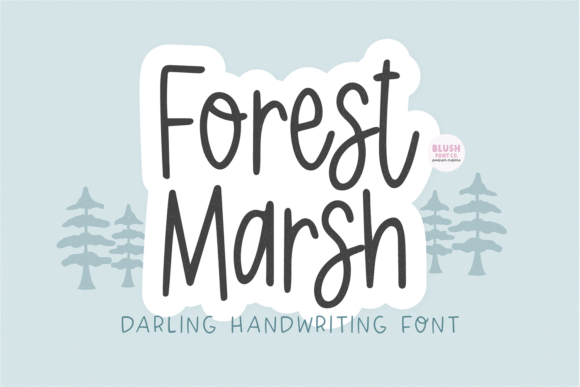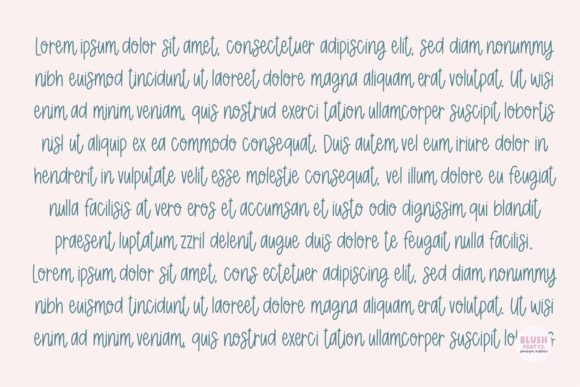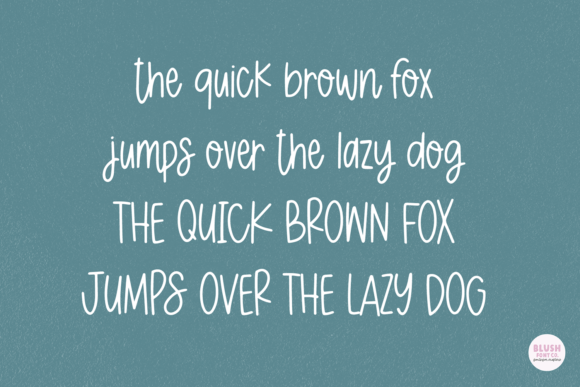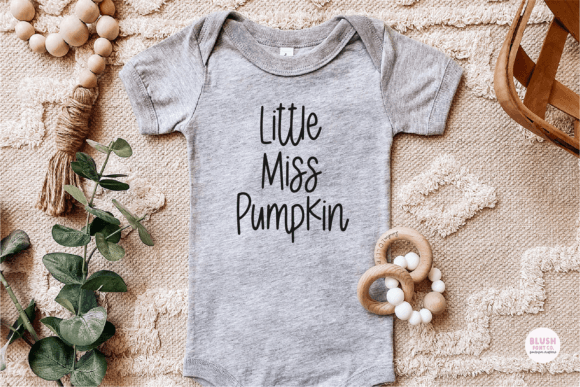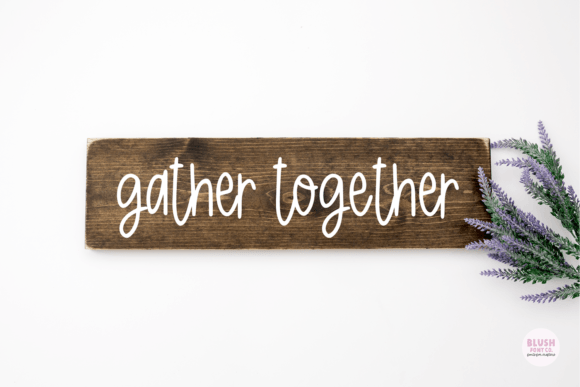
Forest Marsh Font
Forest Marsh is a cute handwriting font that is perfect for social media or crafty projects. Use it for branding, crafts for decor, invitations, and more!